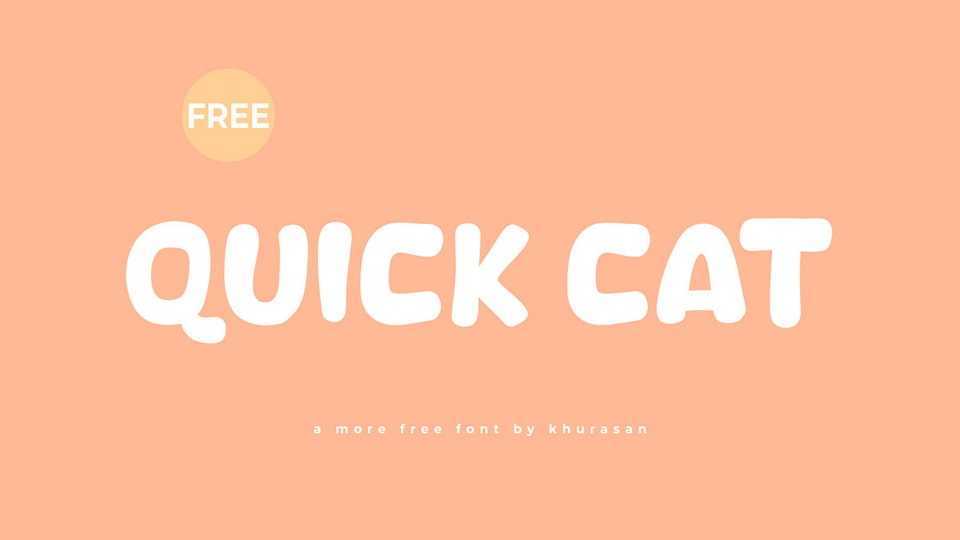
Download Quick Cat font, a blocky and playful hand-drawn typeface that adds a touch of whimsy to your designs. Quick Cat font is crafted with a charming, hand-drawn style, featuring bold letters that exude a playful and lighthearted vibe.